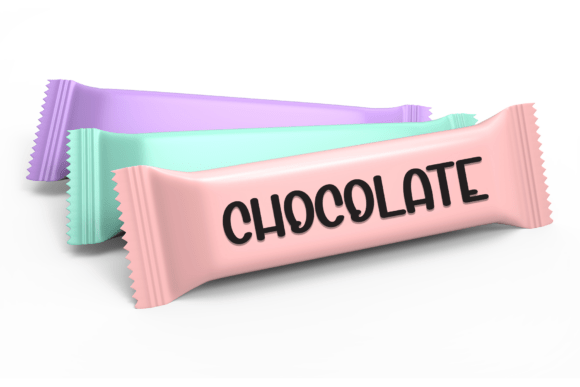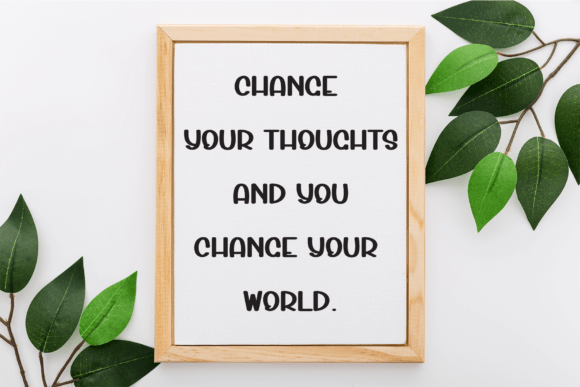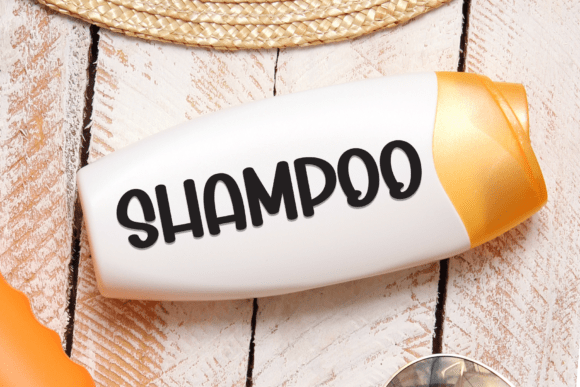
Introduction to Smart Woman Font
Smart Woman is a bold and confident playful font designed to empower your message.
With soft curves and an easygoing style, it’s ideal for campaigns, social media graphics, or any project that champions strength, clarity, and creativity .
Key Features of Smart Woman Font
Why Choose Smart Woman Font?
Smart Woman Font offers exceptional quality and versatility, making it a valuable addition to your design toolkit. Whether you’re creating for personal projects or commercial use, Smart Woman Font delivers professional results.